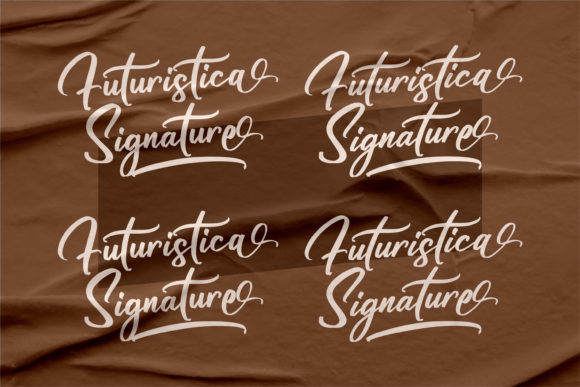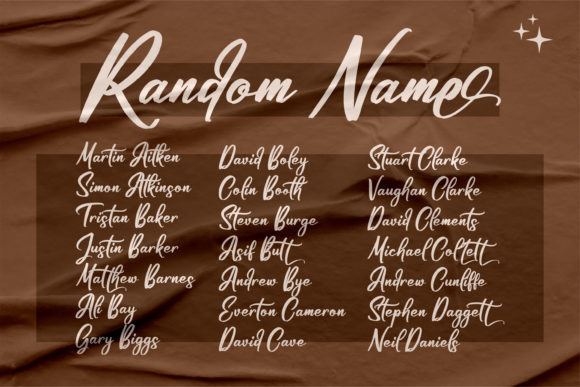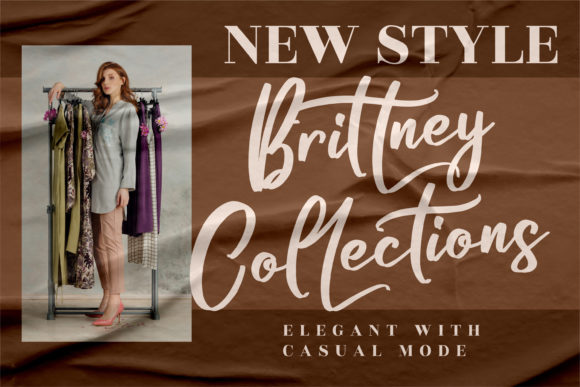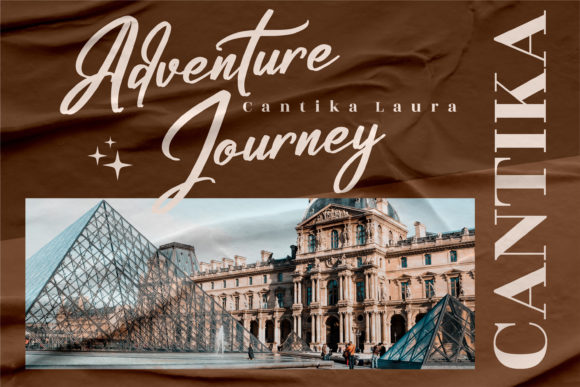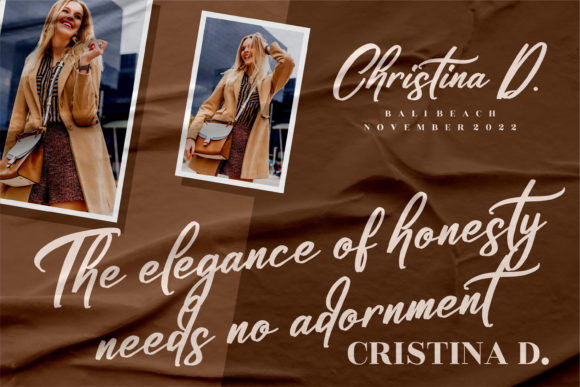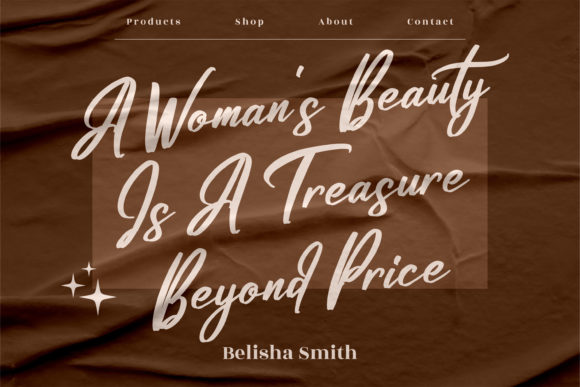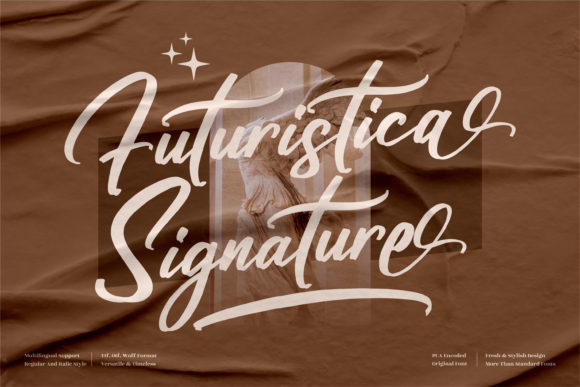
Introducing Futuristica Signature Font: Elevate Your Designs with Elegance and Sophistication
In the world of design, typography plays a crucial role in conveying the tone and personality of a brand or project. For designers and crafters seeking a font that exudes class, elegance, and modernity, Futuristica Signature Font is an exceptional choice. This beautiful script font is designed to elevate your designs, whether you’re working on logos, branding, invitations, stationery, wedding designs, social media posts, or any other creative project.
A Classy, Elegant, and Modern Script Font
Futuristica Signature Font boasts a refined and sophisticated aesthetic, making it perfect for designs that require a touch of luxury and poise. Its elegant and modern look ensures that your creations stand out from the crowd, while its versatility allows it to be used across various mediums and applications. Whether you’re designing for digital or print, this font is sure to leave a lasting impression.
PUA Encoded for Easy Access to Glyphs and Swashes
One of the key features that sets Futuristica Signature Font apart is its PUA (Private Use Area) encoding. This means that accessing the font’s beautiful glyphs and swashes is incredibly easy. With PUA encoding, you can effortlessly navigate the font’s extensive character set, allowing you to add intricate details and flourishes to your designs. This feature is particularly useful for designers who want to create custom typography that reflects their unique style.
Futuristica Signature Font is an incredibly versatile font that can be used for a wide range of design projects. Here are just a few examples of how you can utilize this beautiful script font:
- Logos and Branding: Create a lasting impression with a custom logo that showcases your brand’s personality and values.
- Invitations and Stationery: Add a touch of elegance to your invitations, business cards, and letterheads.
- Wedding Designs: Make your wedding designs truly unforgettable with a font that exudes romance and sophistication.
- Social Media Posts: Elevate your social media presence with eye-catching graphics and typography.
Why Choose Futuristica Signature Font?
With so many fonts available, why choose Futuristica Signature Font? Here are just a few reasons why designers and crafters love this font:
- Unique and Distinctive: Futuristica Signature Font offers a unique and distinctive look that sets it apart from more traditional fonts.
- Elegant and Sophisticated: This font exudes elegance and sophistication, making it perfect for designs that require a touch of luxury.
- Versatile: Futuristica Signature Font can be used across various mediums and applications, from digital to print.
- Easy to Use: With PUA encoding, accessing the font’s glyphs and swashes is incredibly easy.
In conclusion, Futuristica Signature Font is an exceptional choice for designers and crafters seeking a beautiful, refined, and elegant script font. Its classy and modern look, combined with its versatility and ease of use, make it an ideal font for a wide range of design projects. Whether you’re working on logos, branding, invitations, or social media posts, Futuristica Signature Font is sure to elevate your designs and leave a lasting impression.